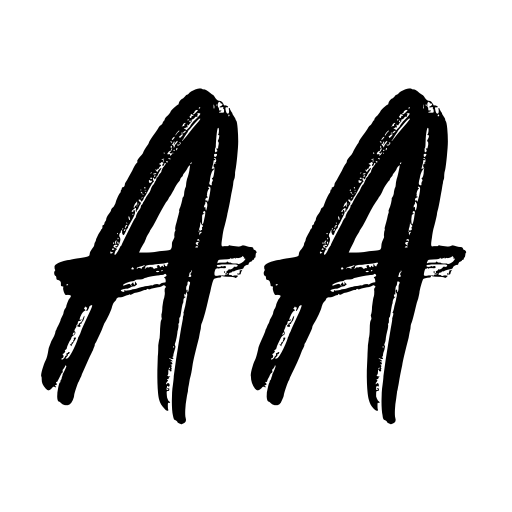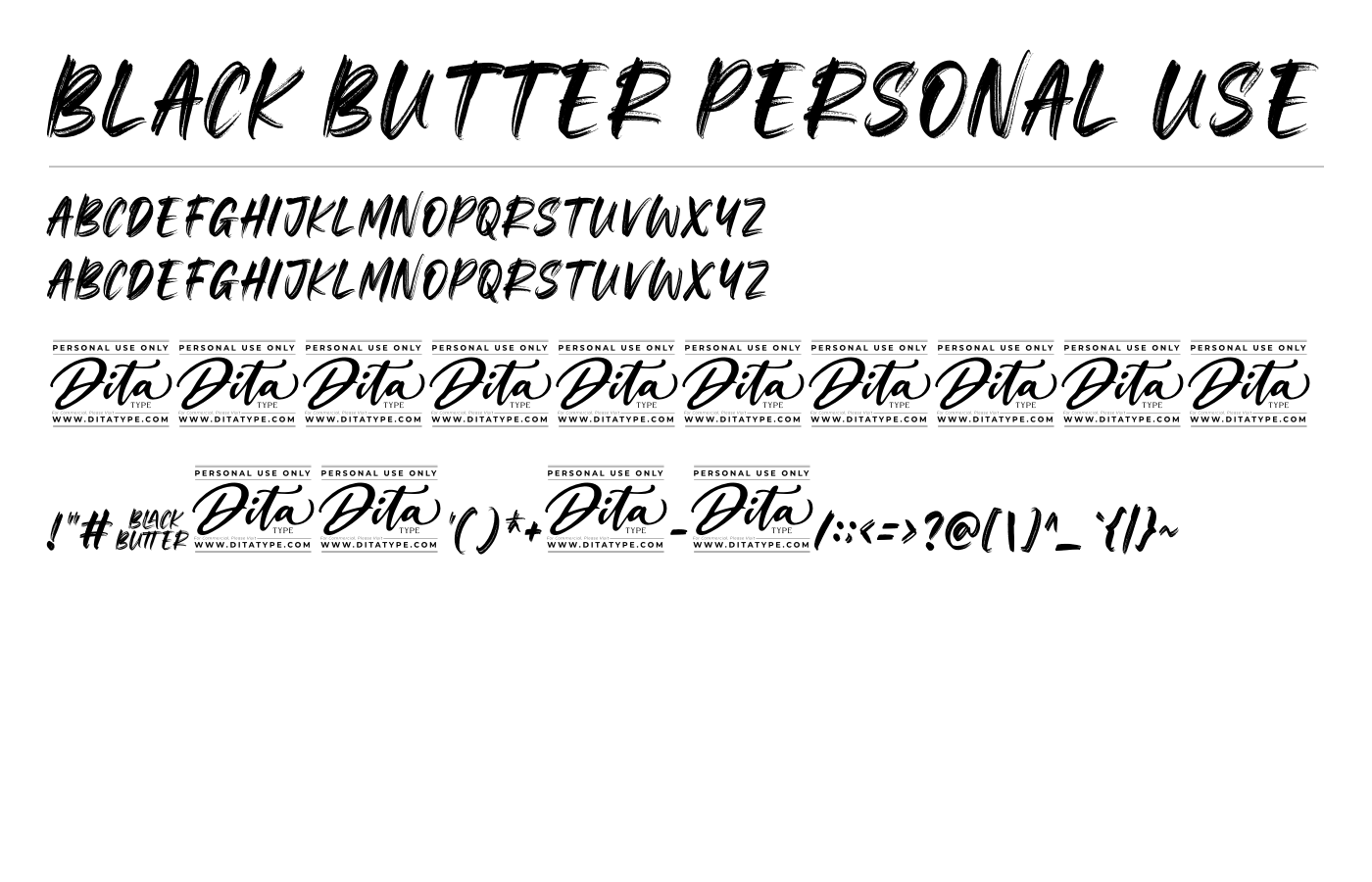
Black Butter Personal Use is a bold and energetic brush script font characterized by its rough, hand-painted texture and dynamic letterforms. It exudes a casual yet impactful vibe, making it perfect for creative projects, branding, and headlines that want to convey a sense of personality and spontaneity. This font shines in informal designs, such as posters, social media graphics, and packaging, where its expressive style can capture attention and add a lively, artistic touch.
Black Butter Personal Use Font
About Black Butter Personal Use Font
| Font family | Black Butter Personal Use Font |
| Font subfamily | Black, Italic |